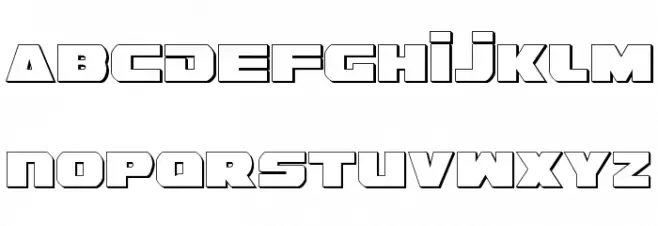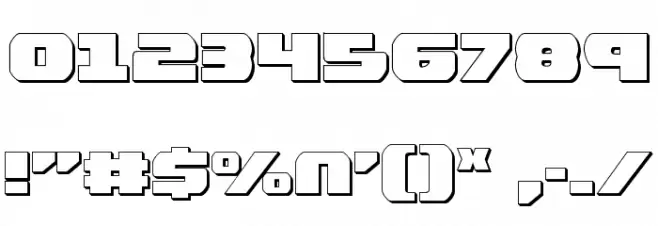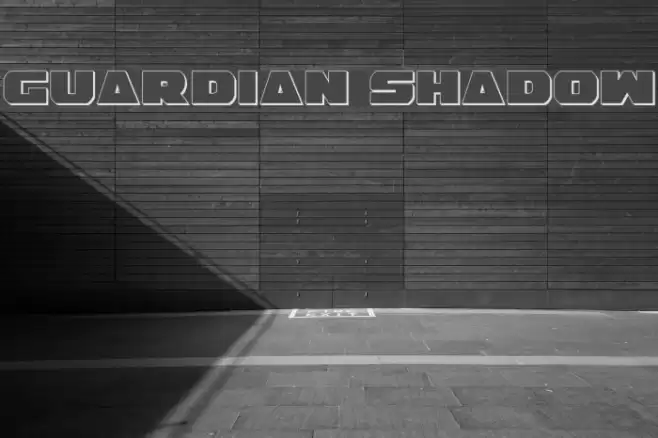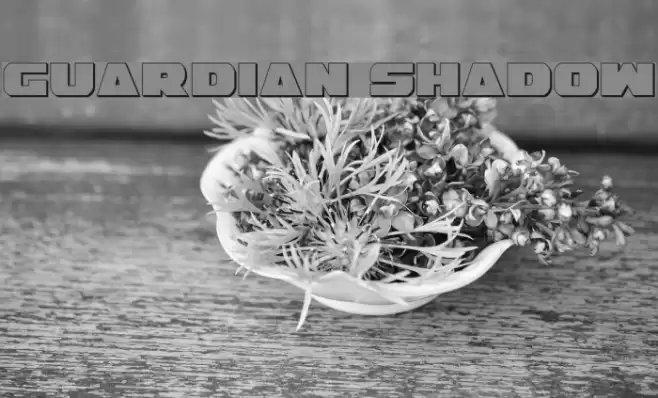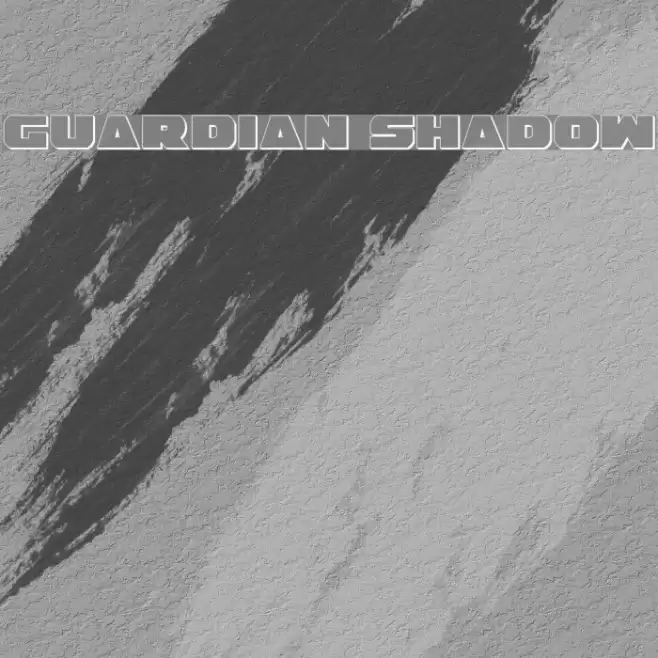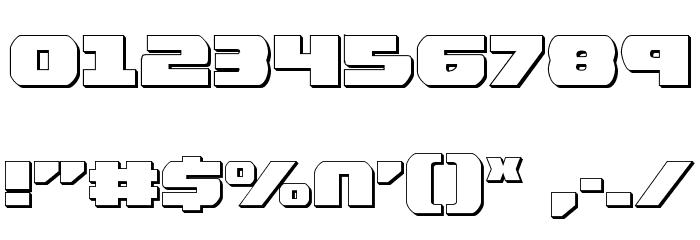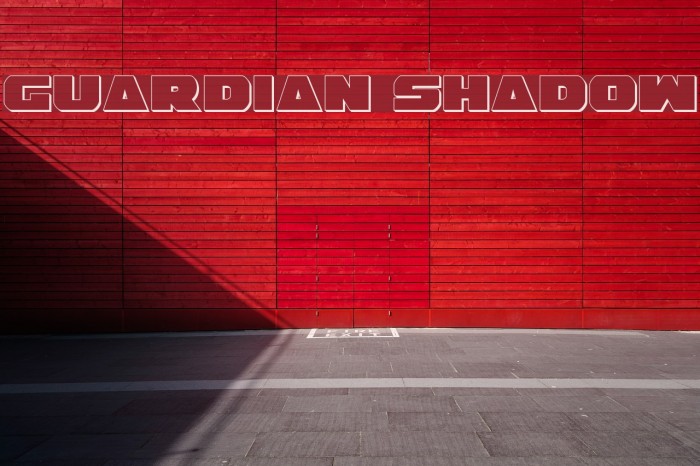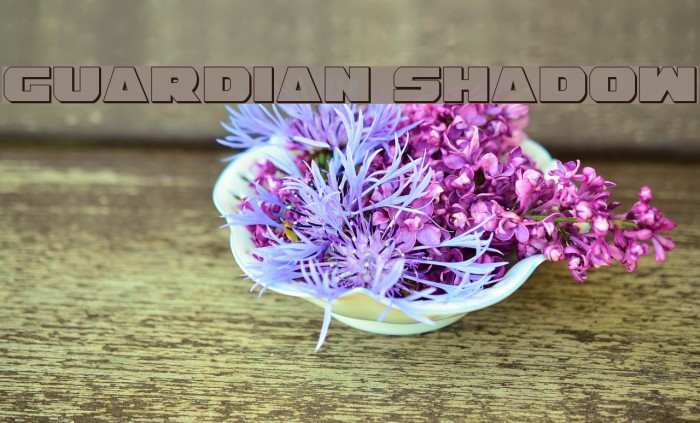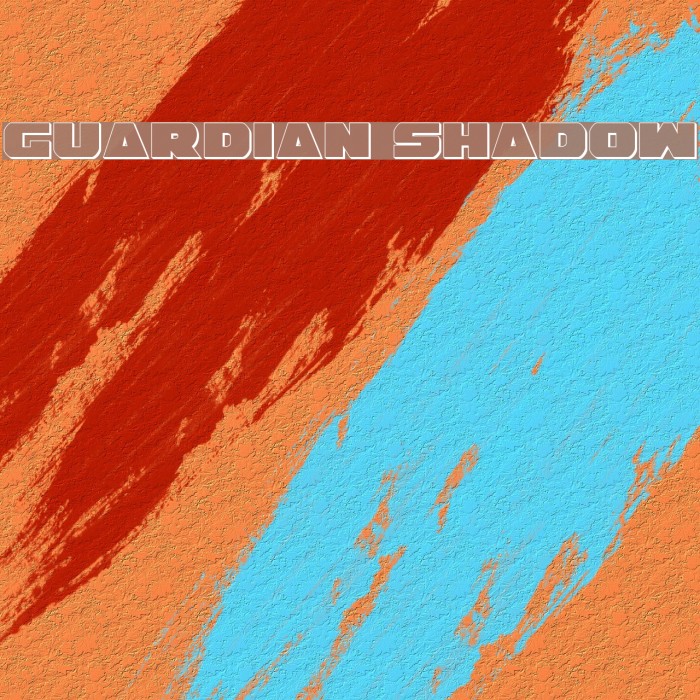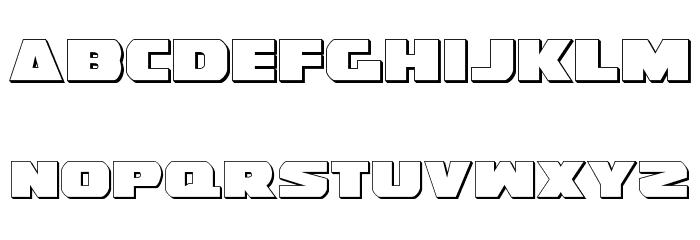
Guardian Shadow
This font features a bold, geometric style with a shadow effect that gives it a three-dimensional appearance. The characters are blocky and angular, with a consistent thickness throughout. The shadow adds depth and a sense of movement, making it stand out on any page. The uppercase and lowercase letters maintain a uniform height, while the numbers and special characters are designed to match the overall aesthetic. The font's design is both modern and futuristic, making it suitable for a variety of creative projects.
A bold, geometric font with a shadow effect for a 3D look.
- Proposed Projects: Ideal for video game titles, sci-fi posters, tech branding, and futuristic designs.
- Overall Style: Futuristic
- Use Case: Headlines, Logos, Posters